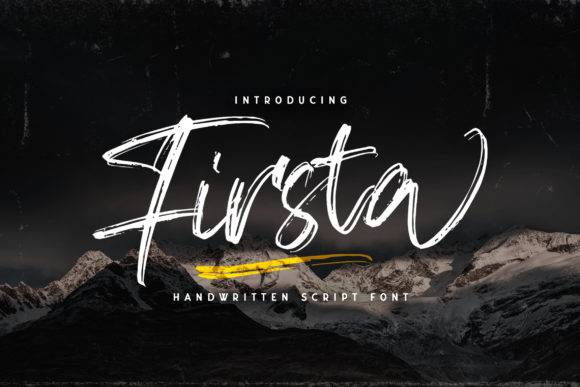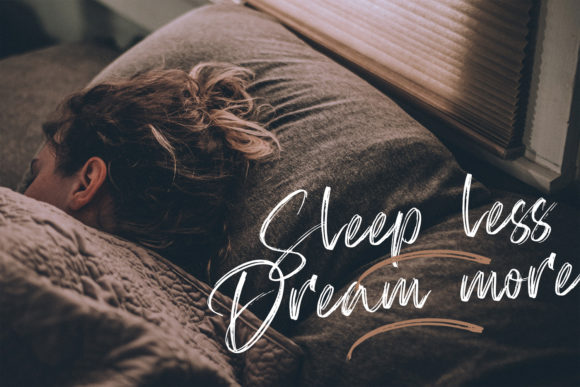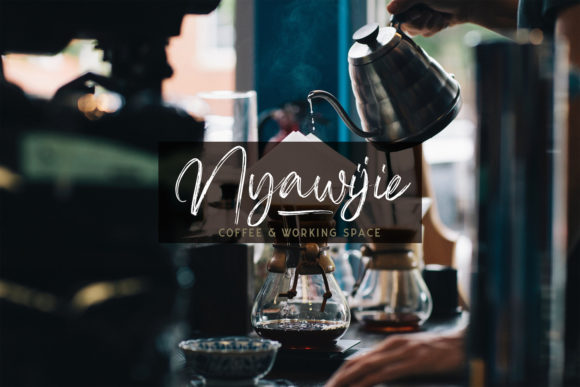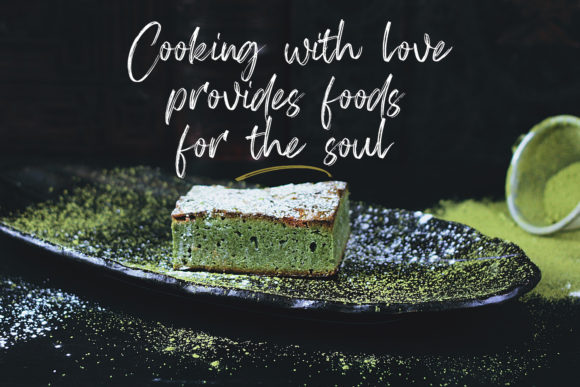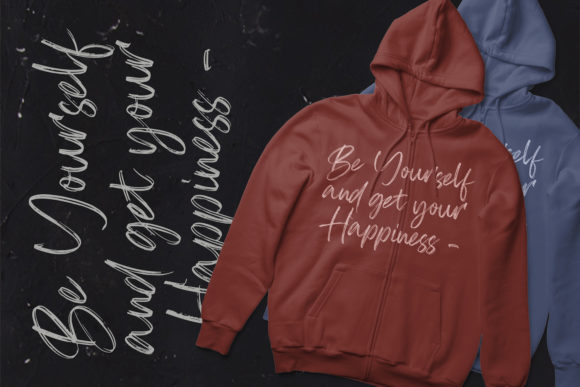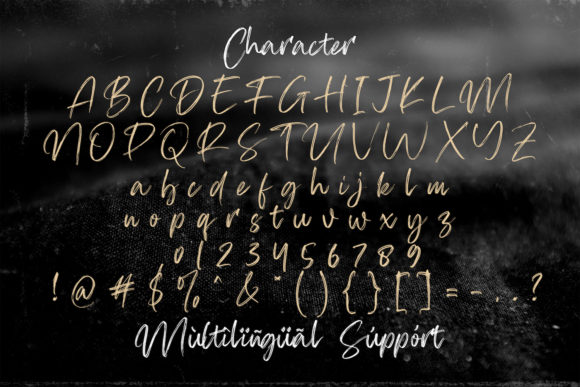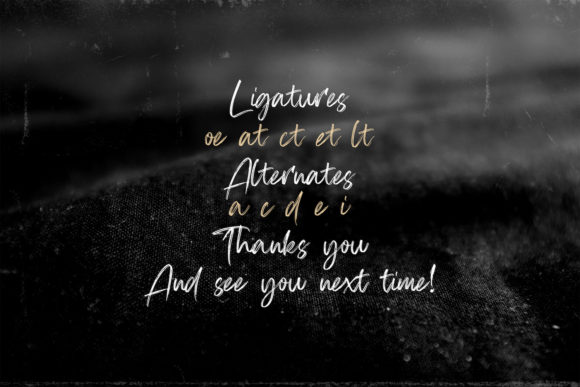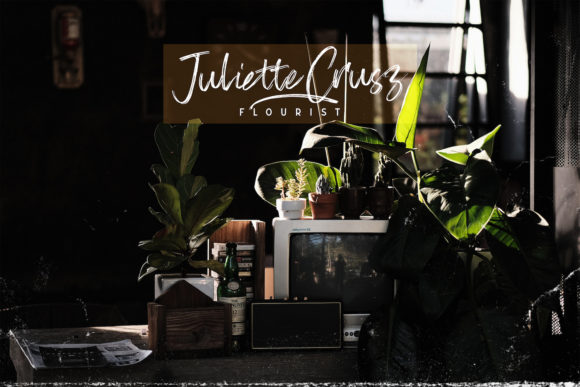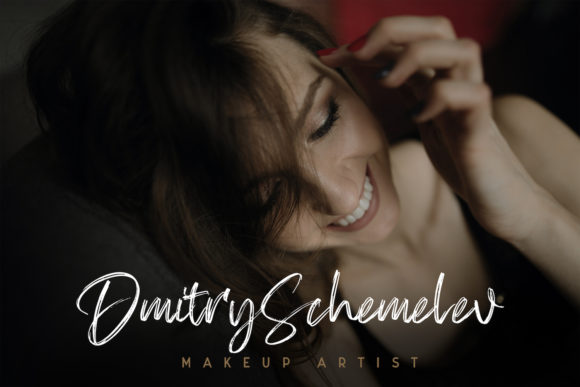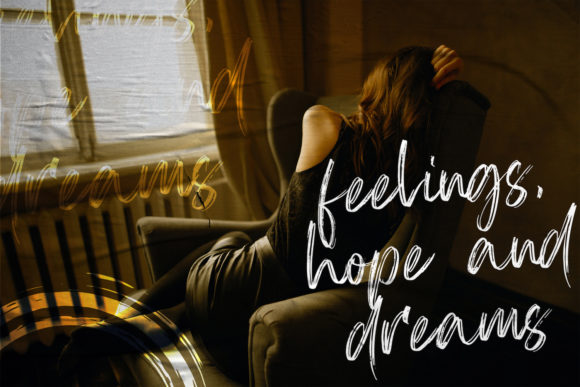
Firsta Font
About Firsta Font
Firsta is a sweet and flowing handwritten font, designed with the help of a brush pen. Get creative with its unique and incredibly elegant style and elevate your projects to the highest levels!